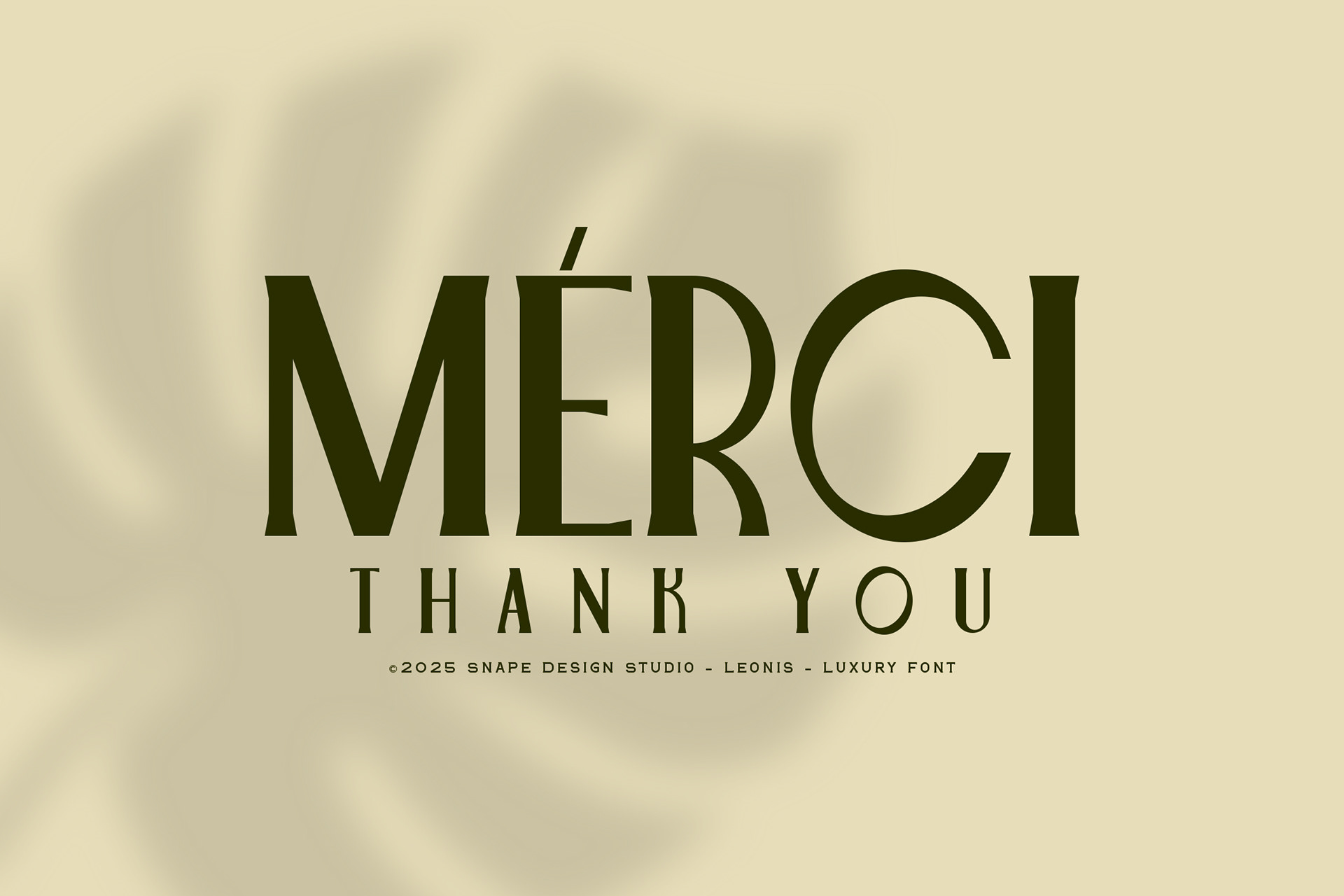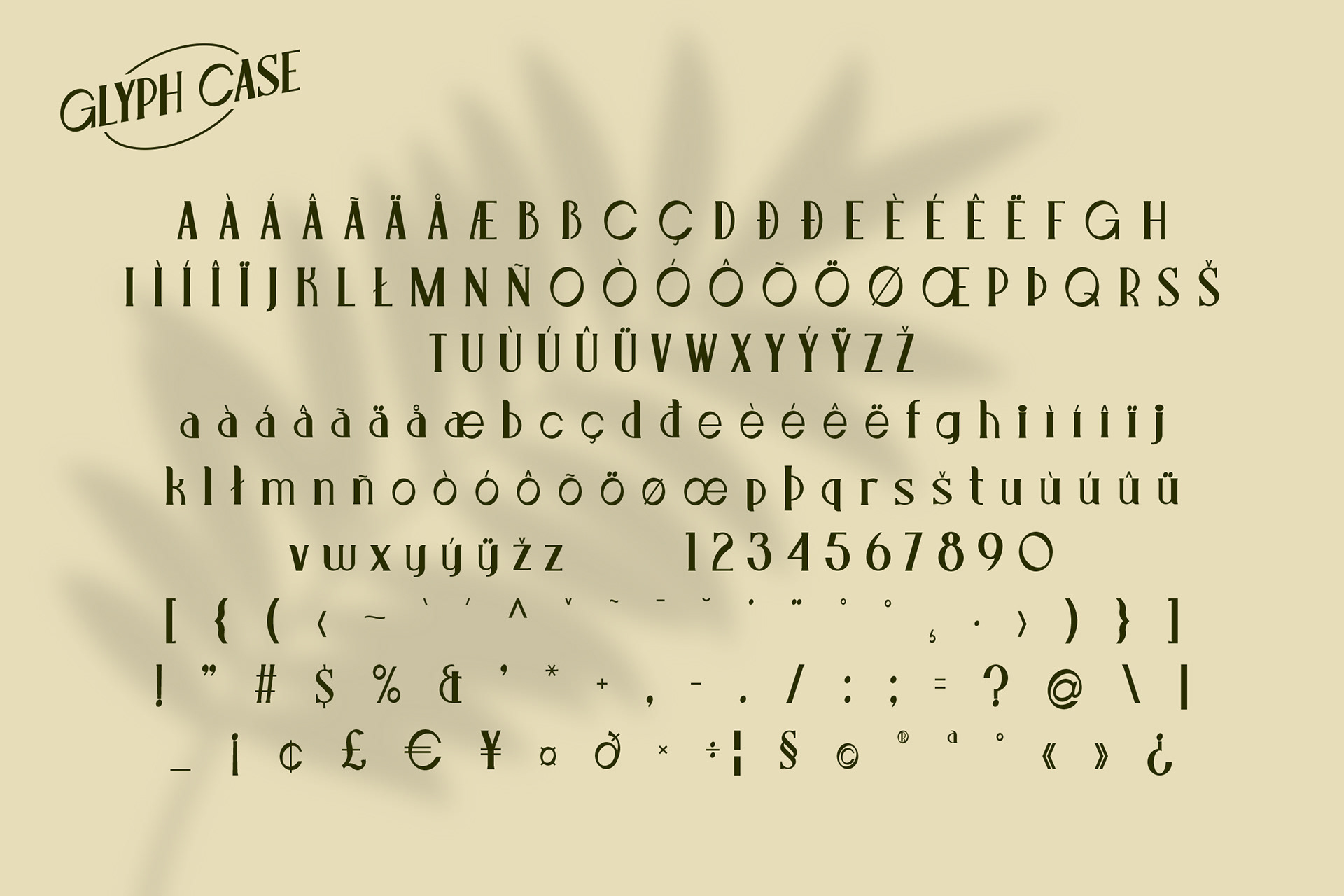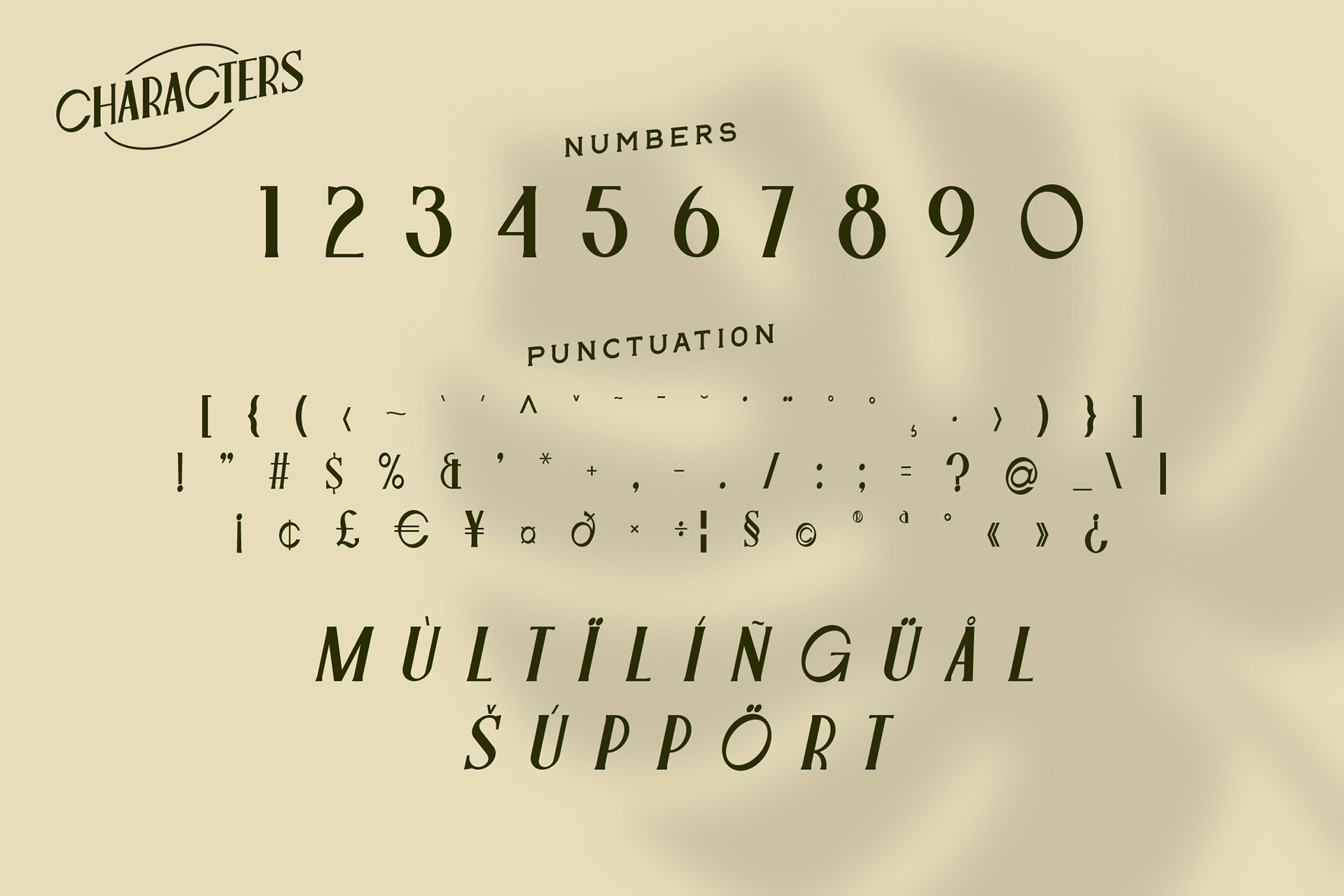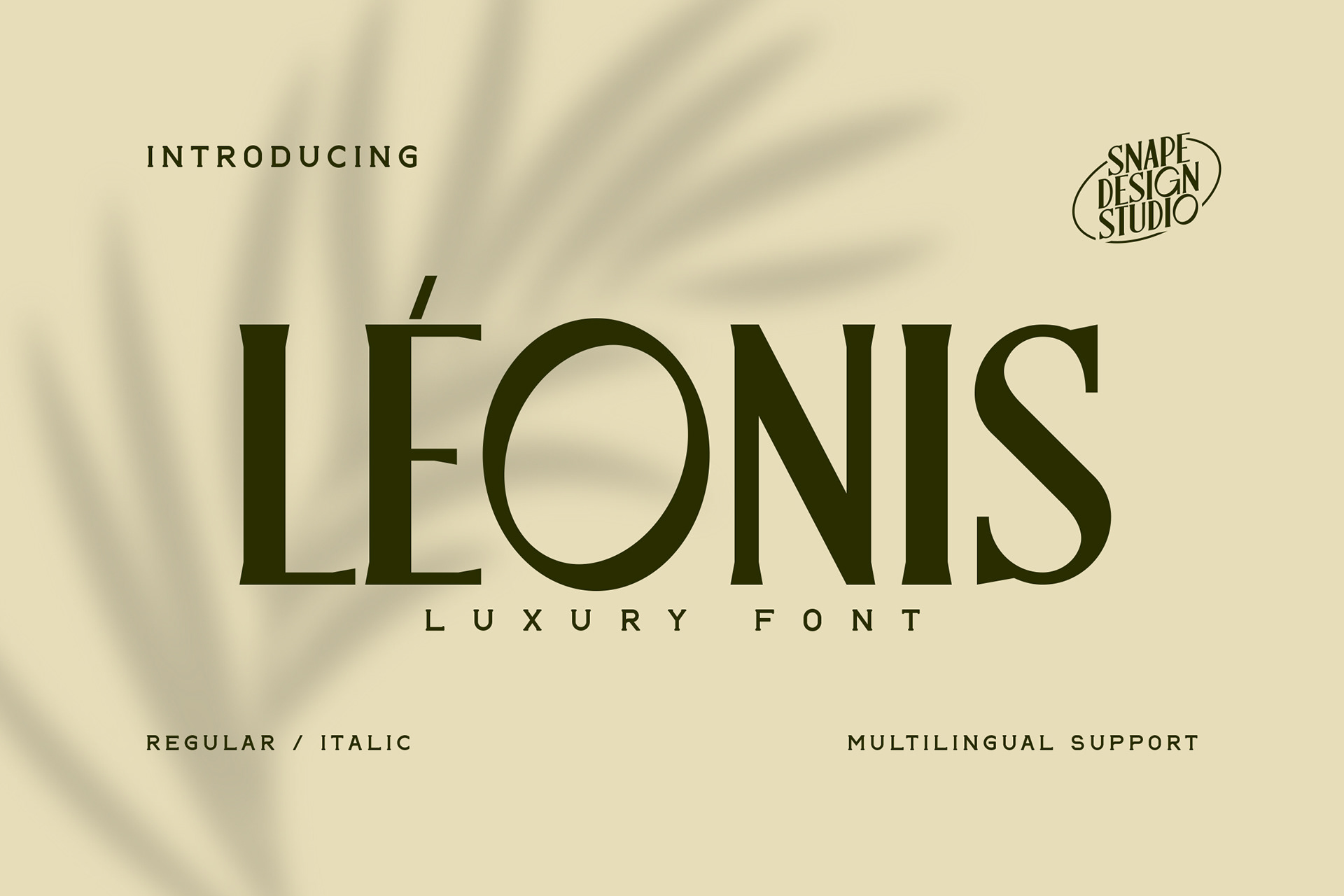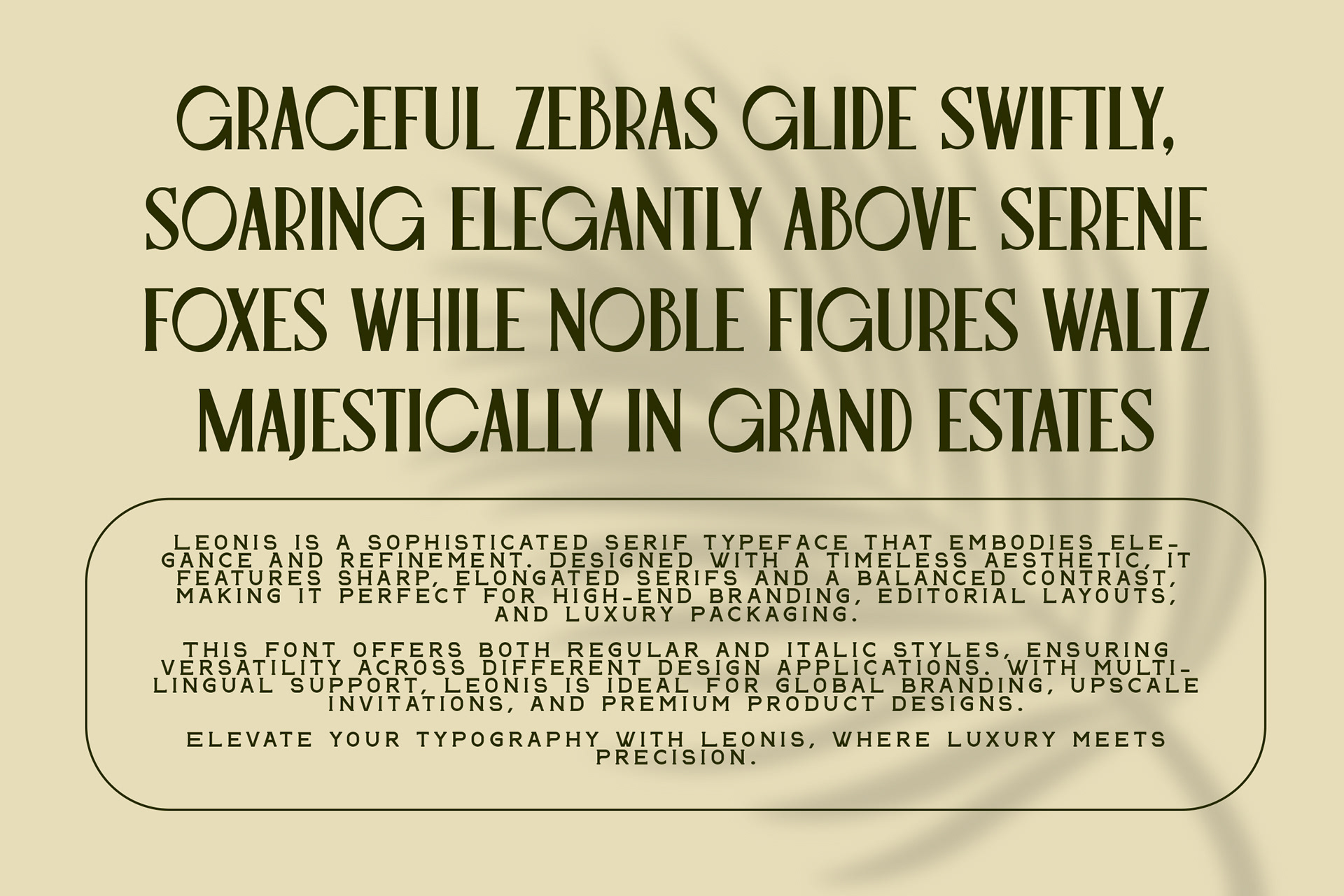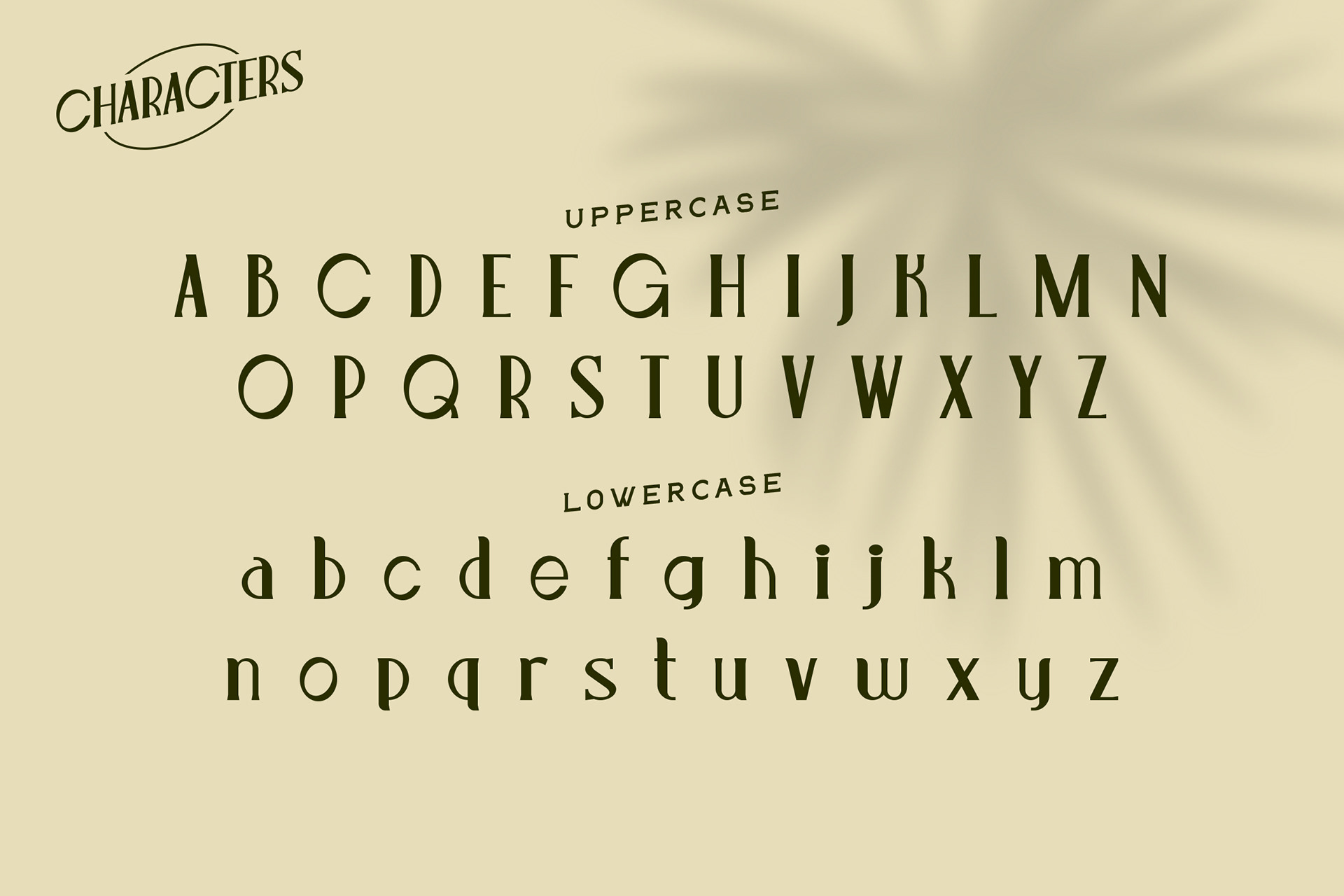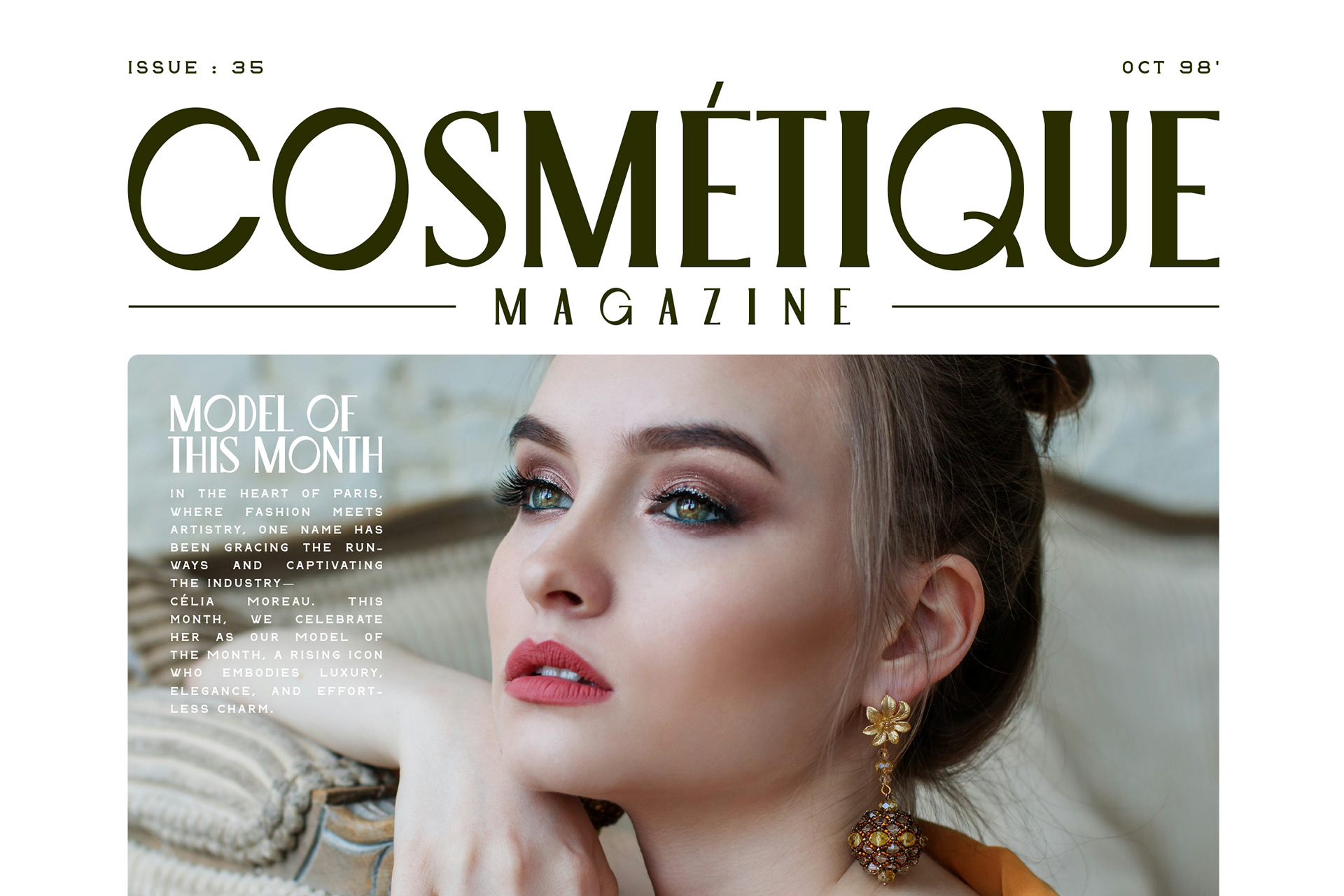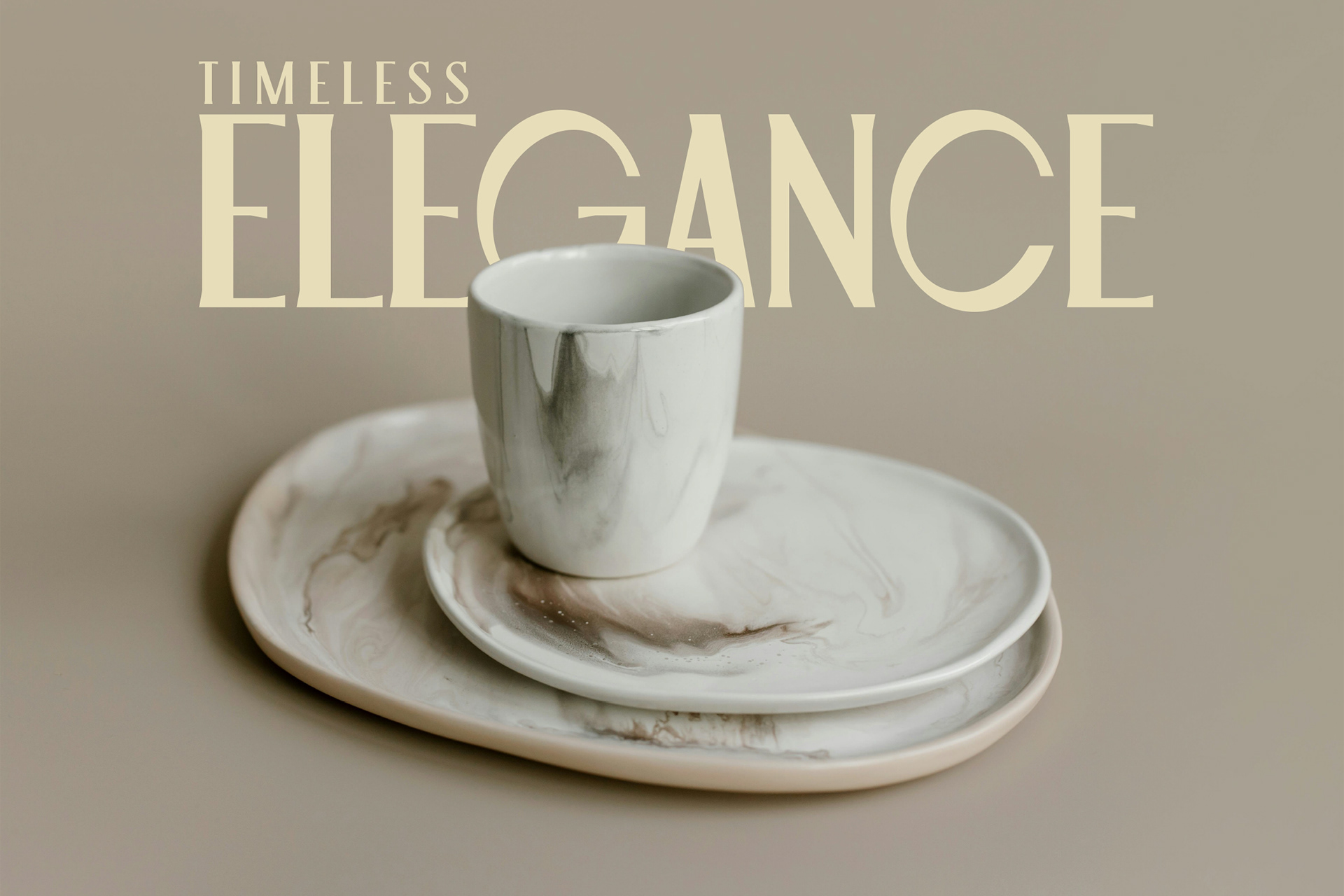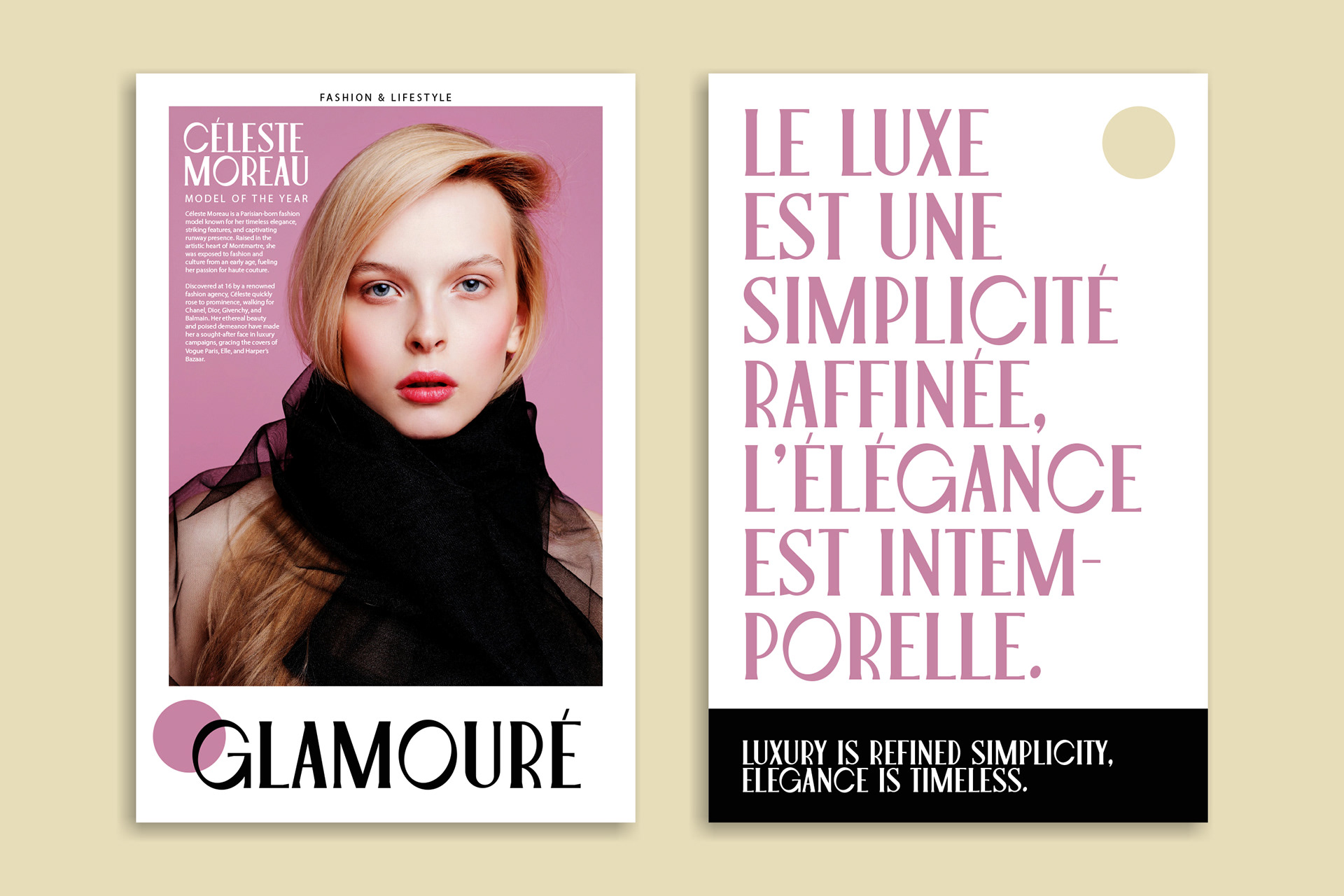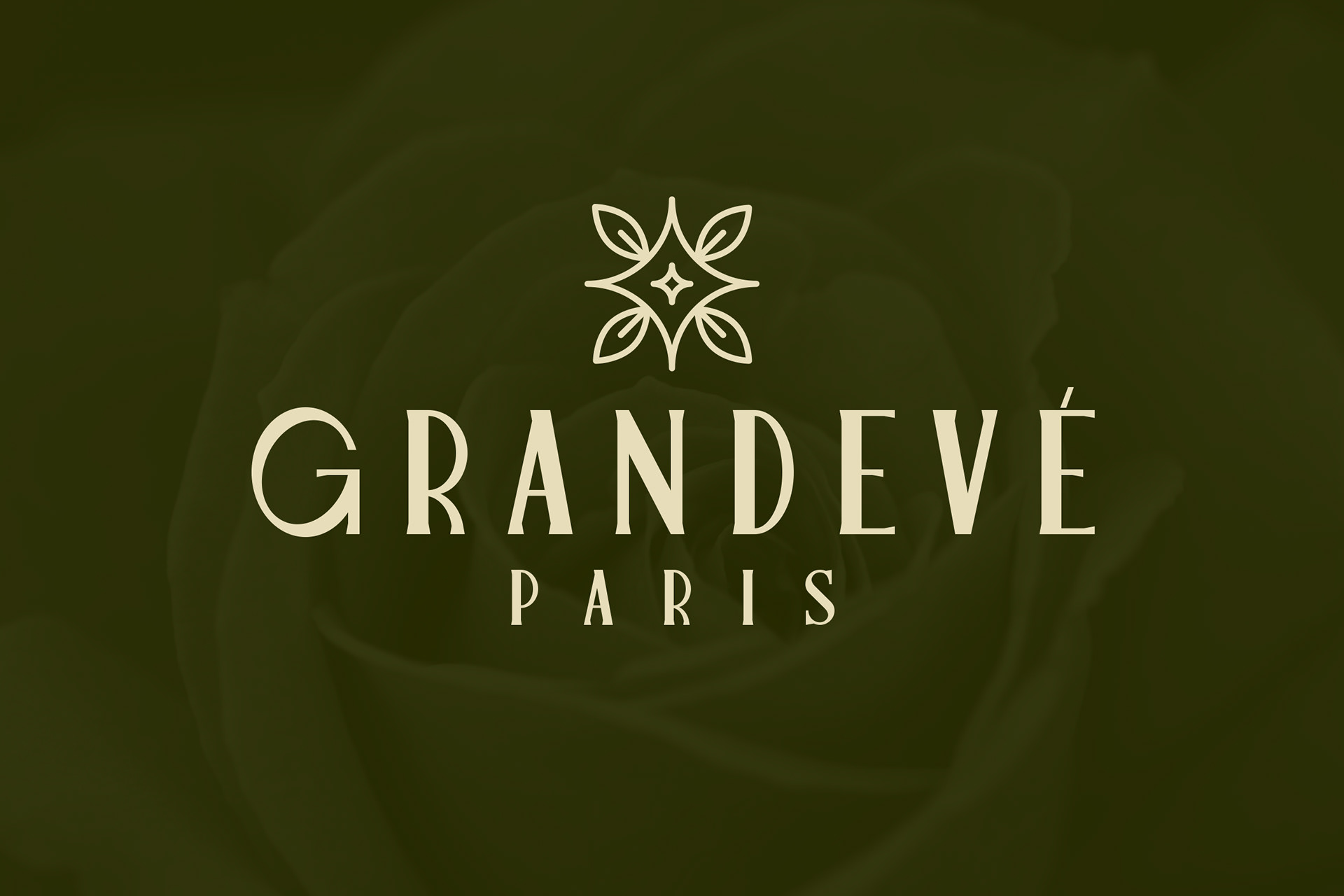
ABOUT THE FONT
Leonis is a refined serif typeface that embodies sophistication and timeless beauty. Designed with precision, its graceful curves and high-contrast strokes exude an aura of luxury, making it the perfect choice for premium branding, editorial designs, and high-fashion aesthetics.​​​​​​​
Leonis - Luxury Font design by Ario Sabrang Damar publish under Snape Design Studio